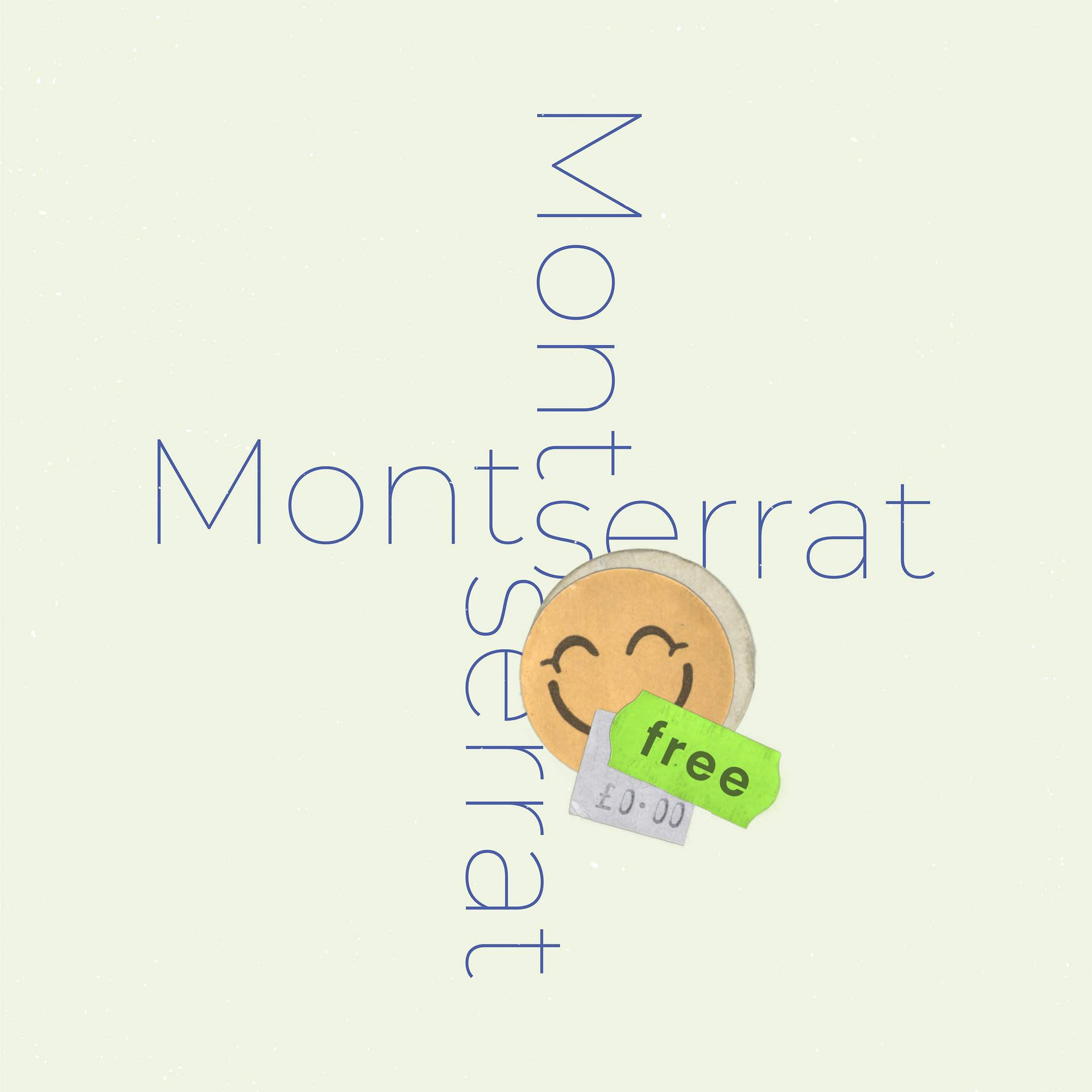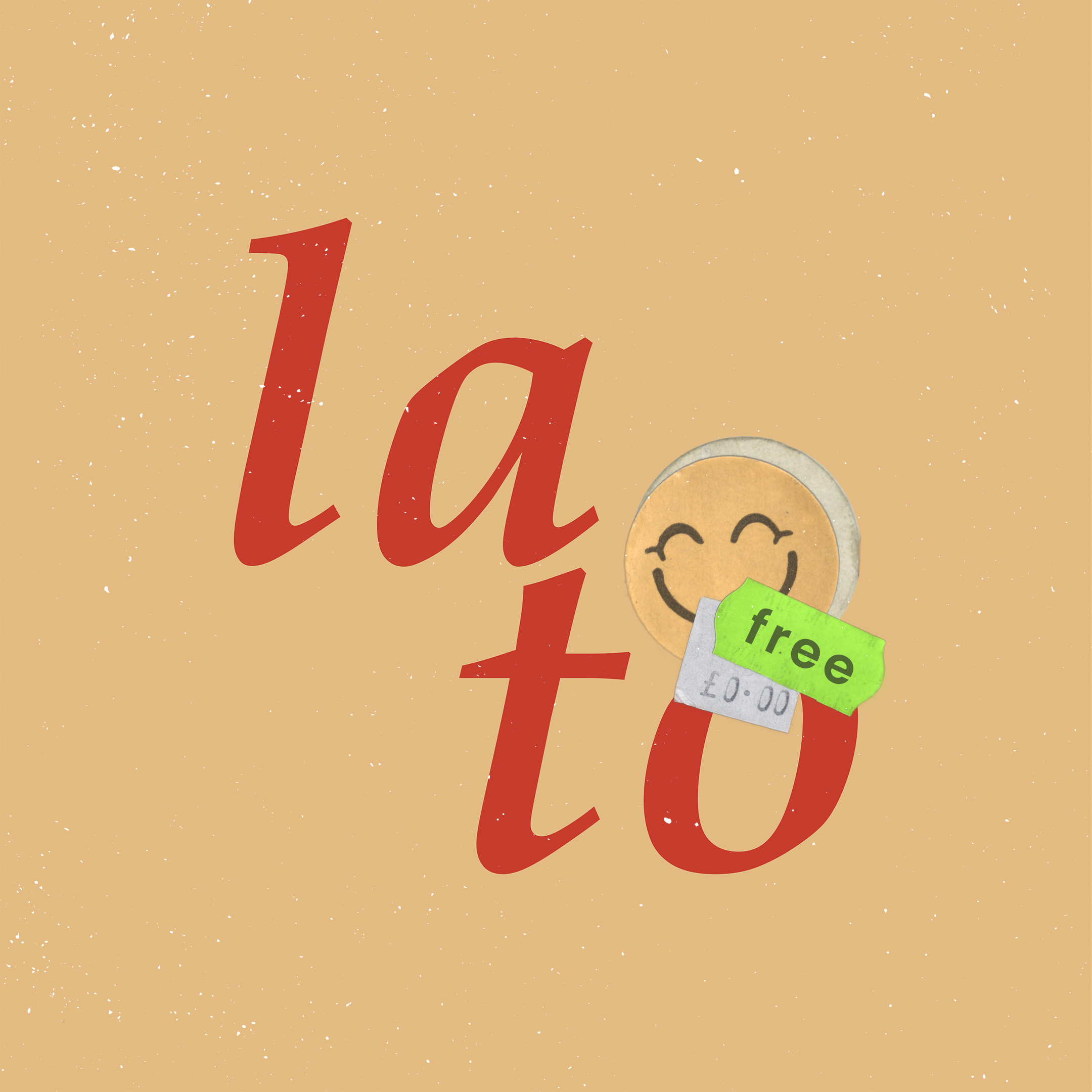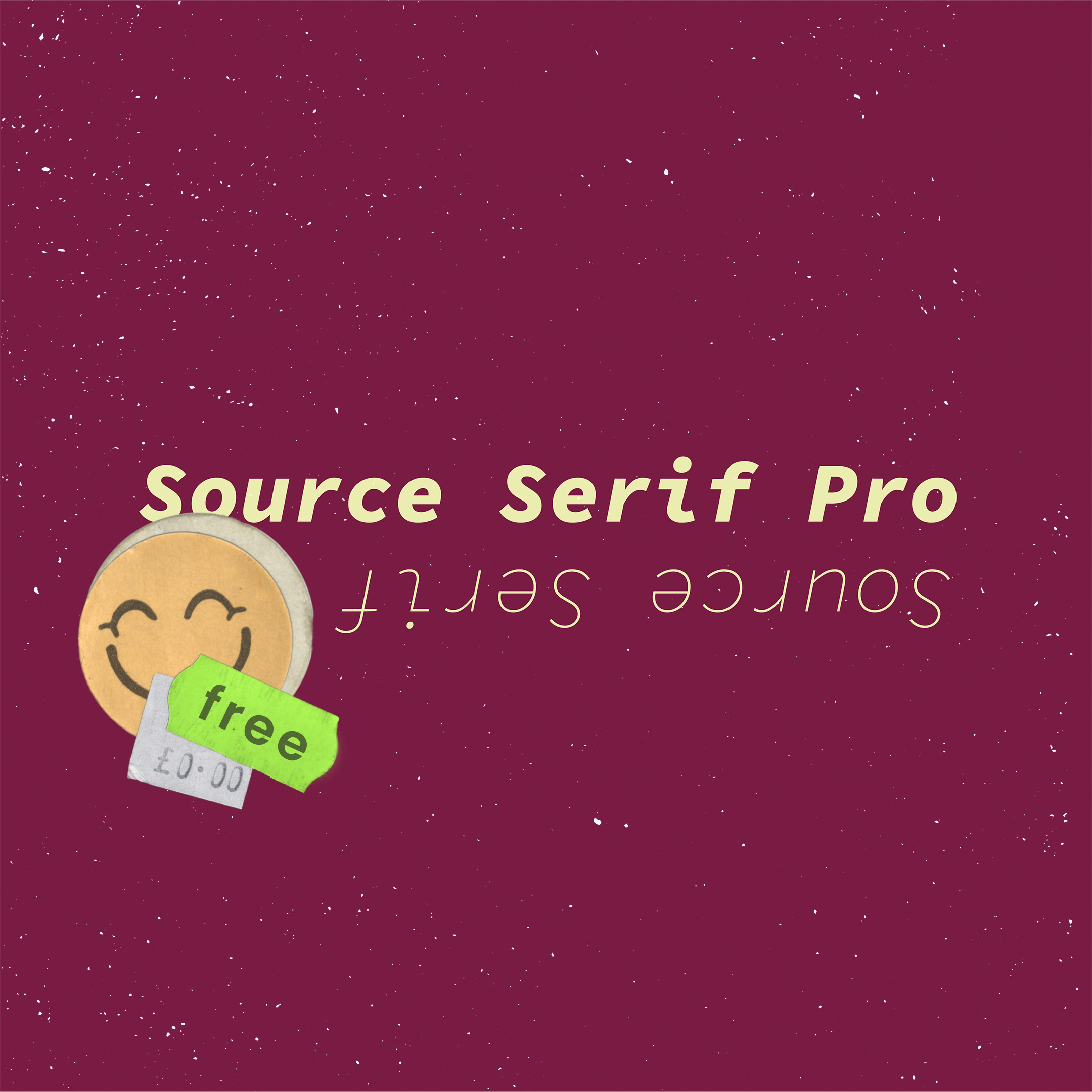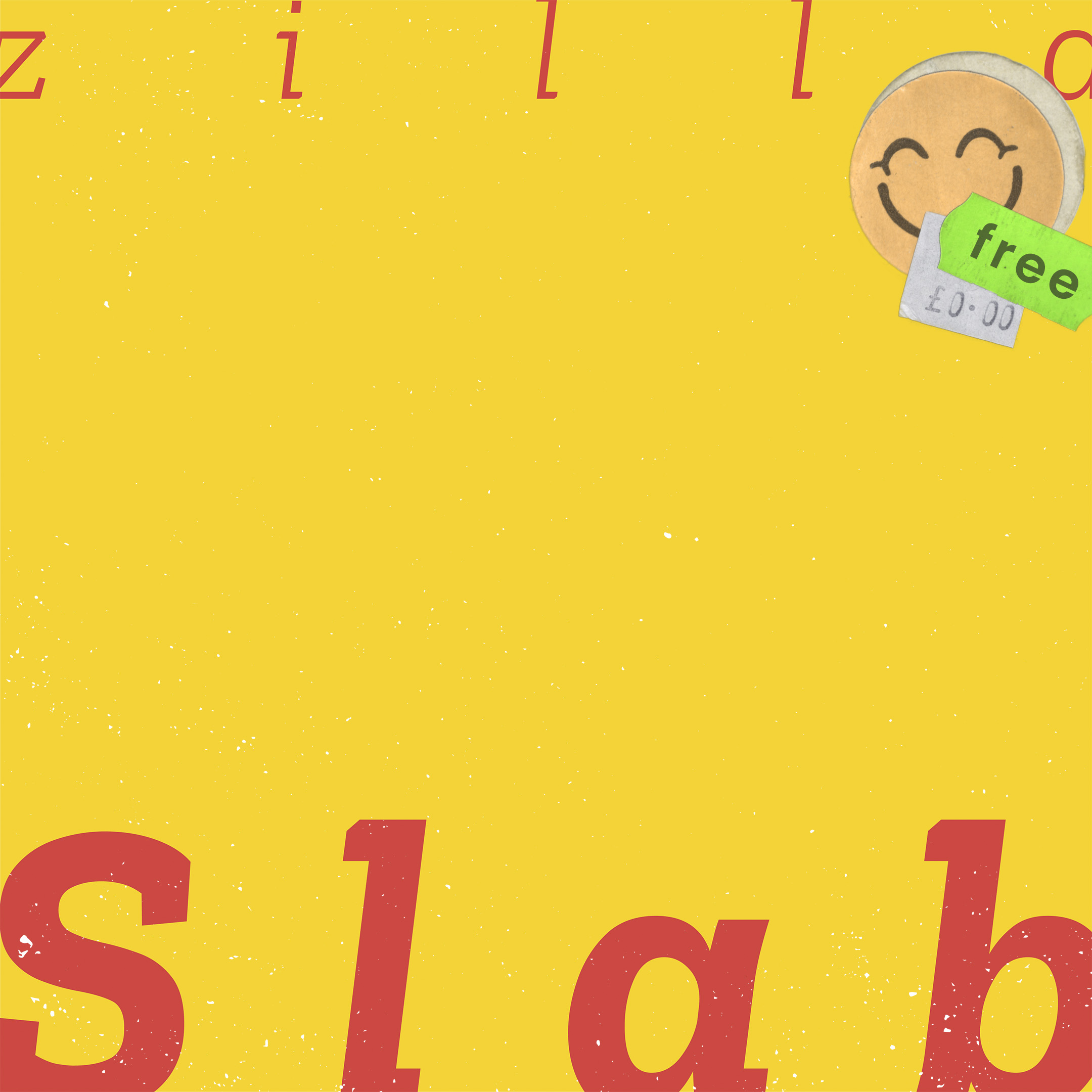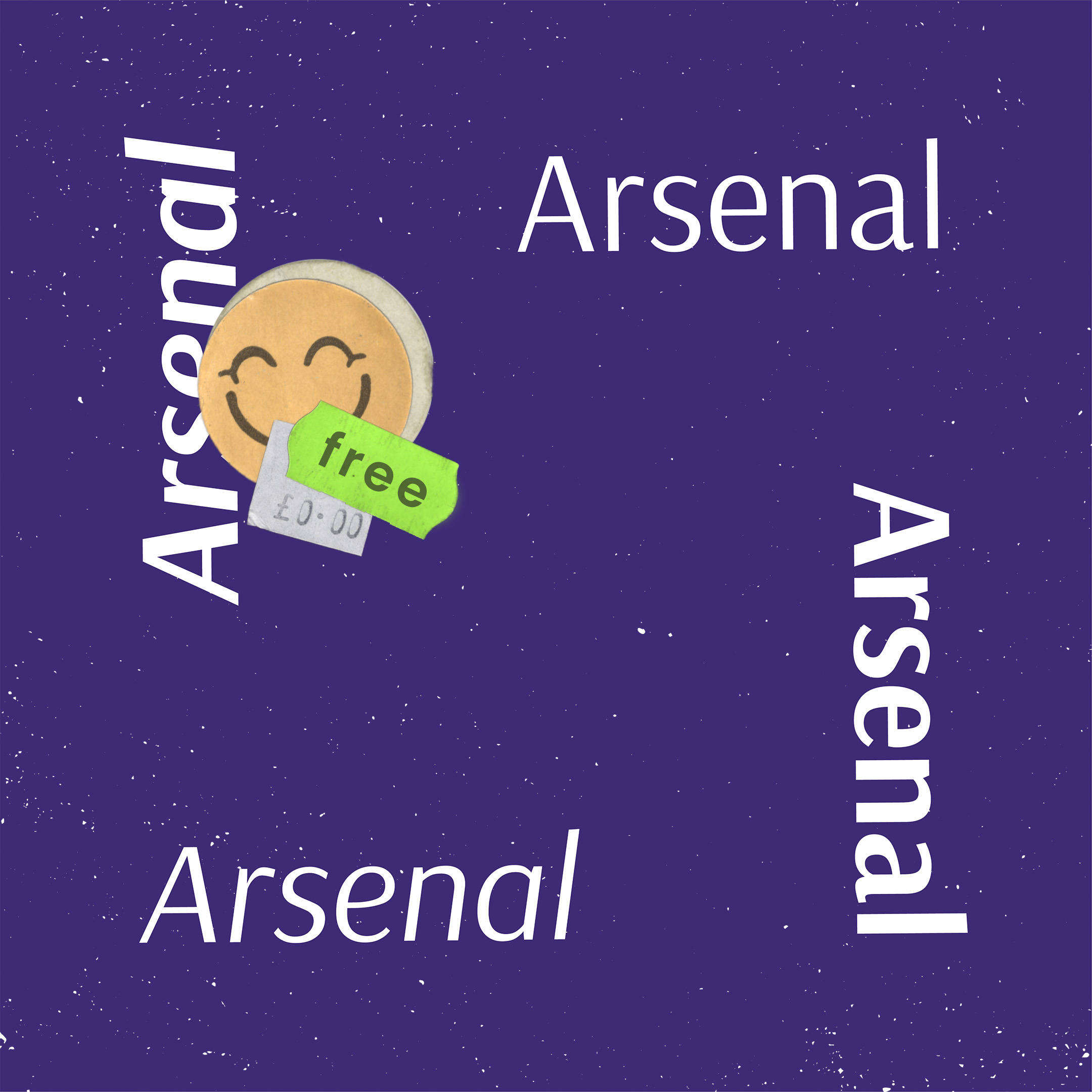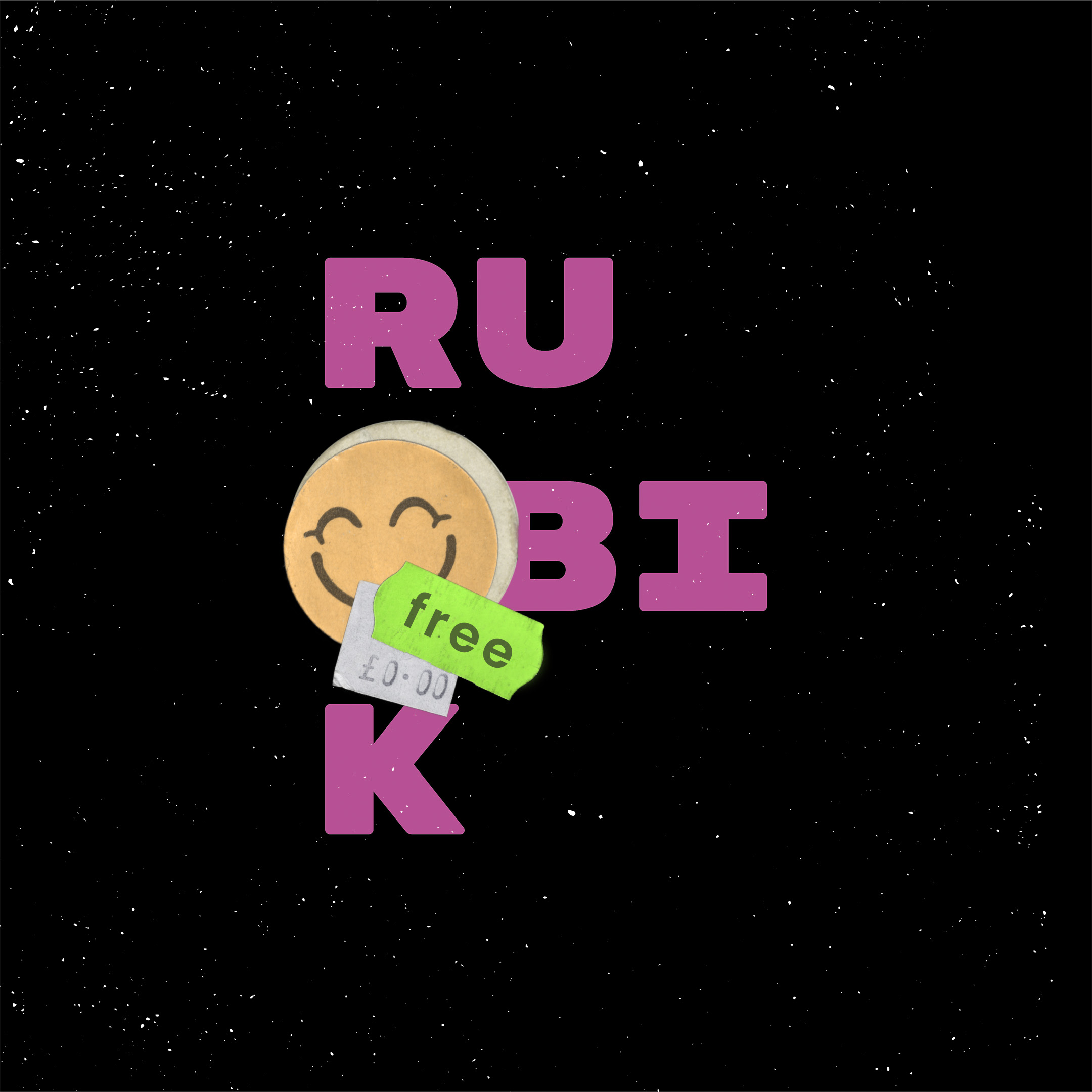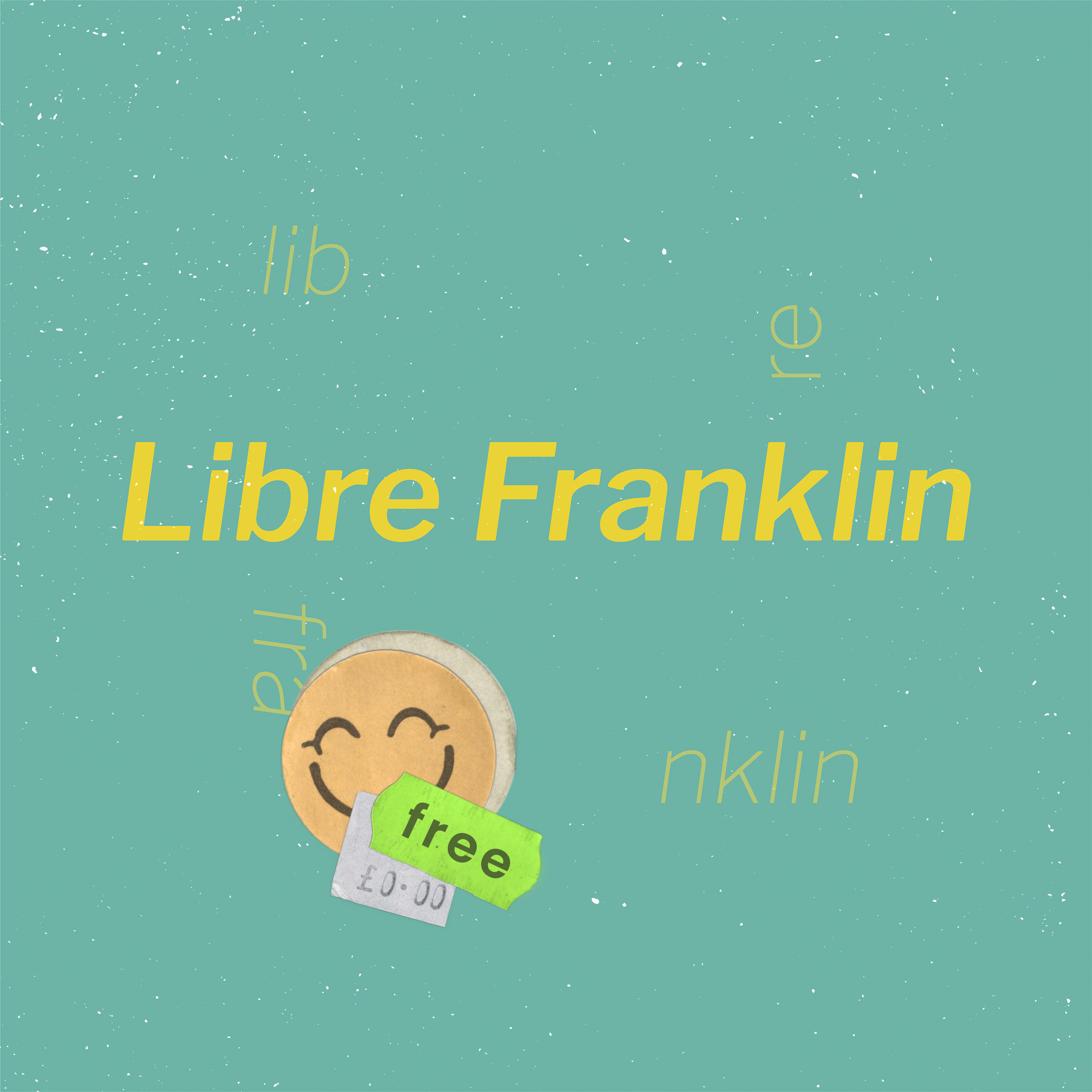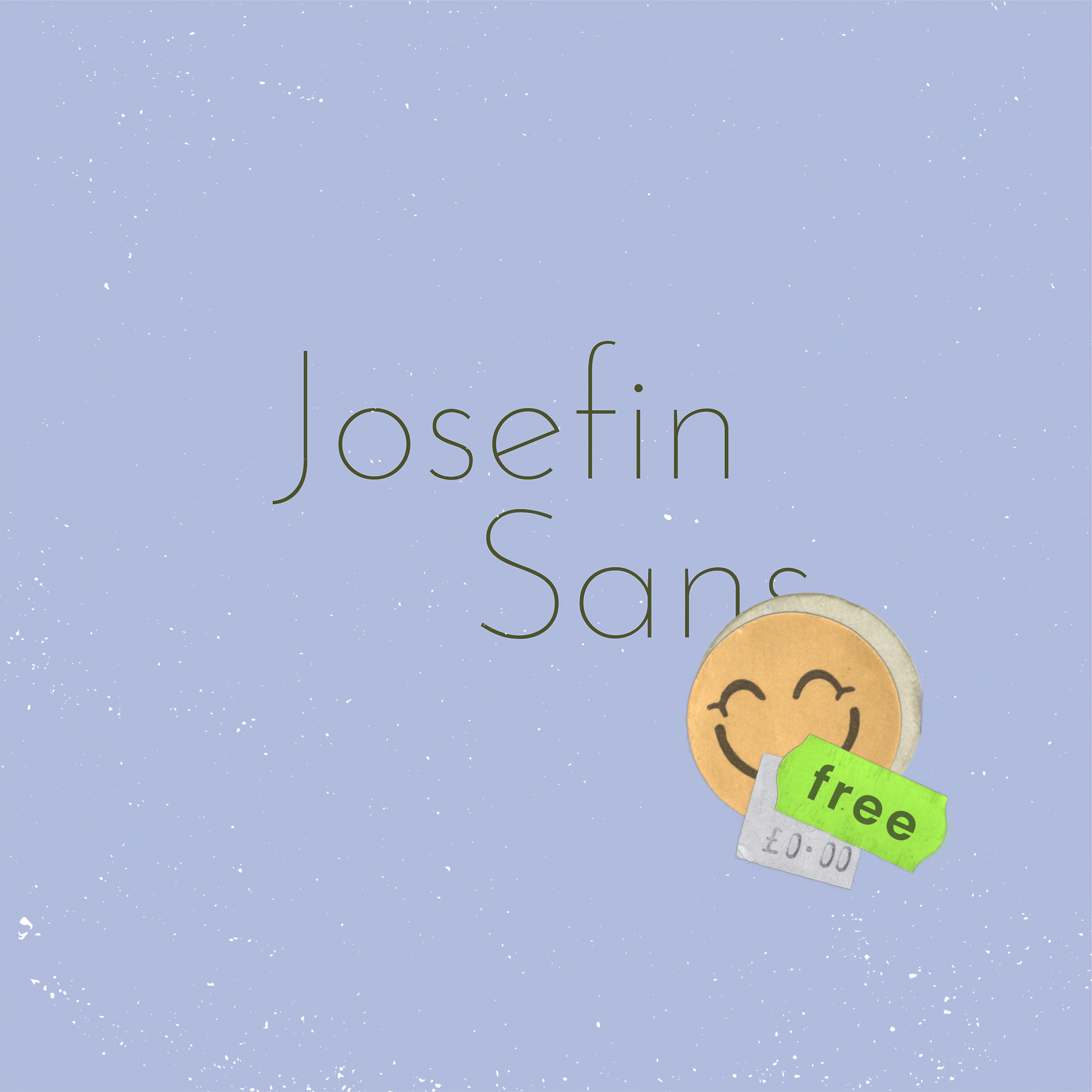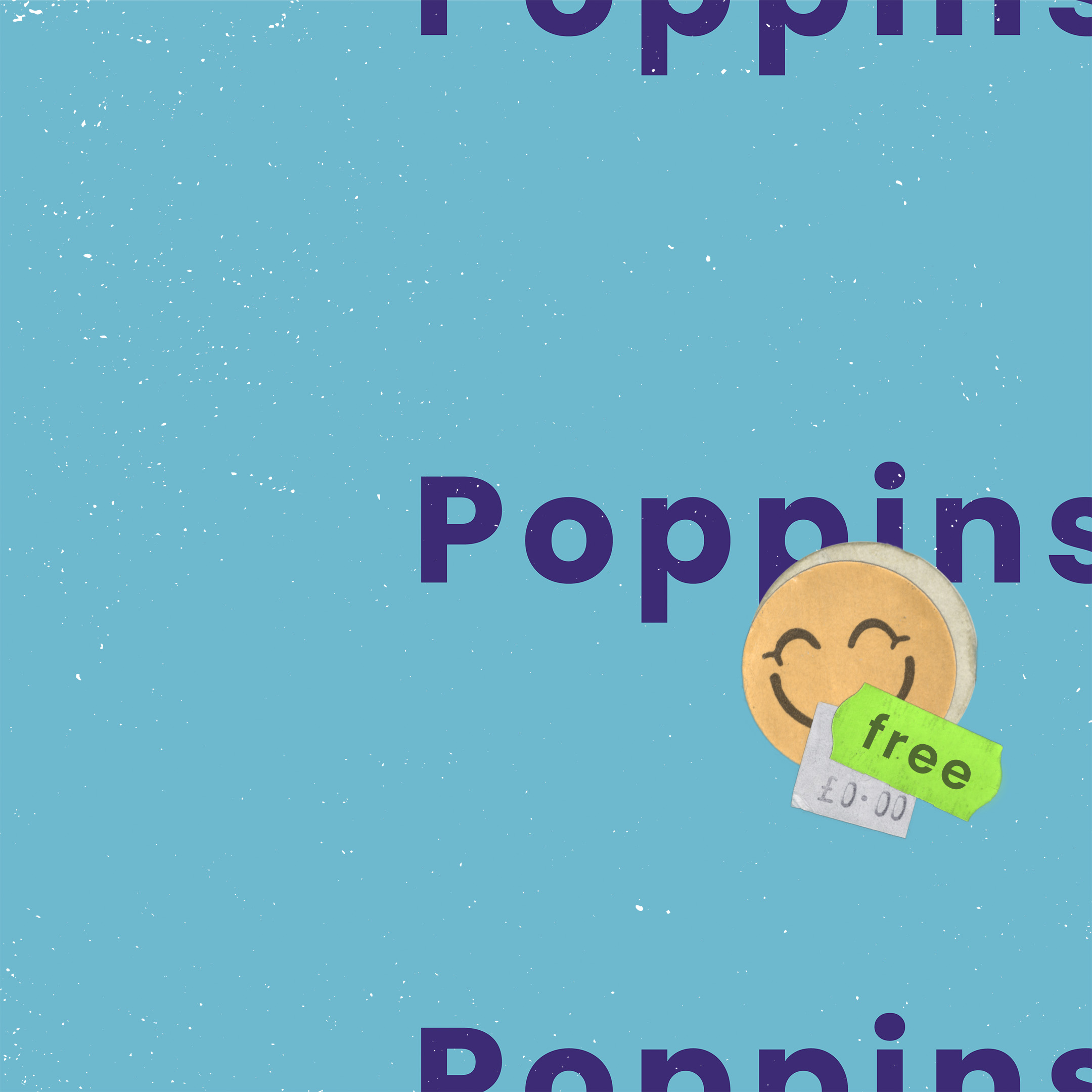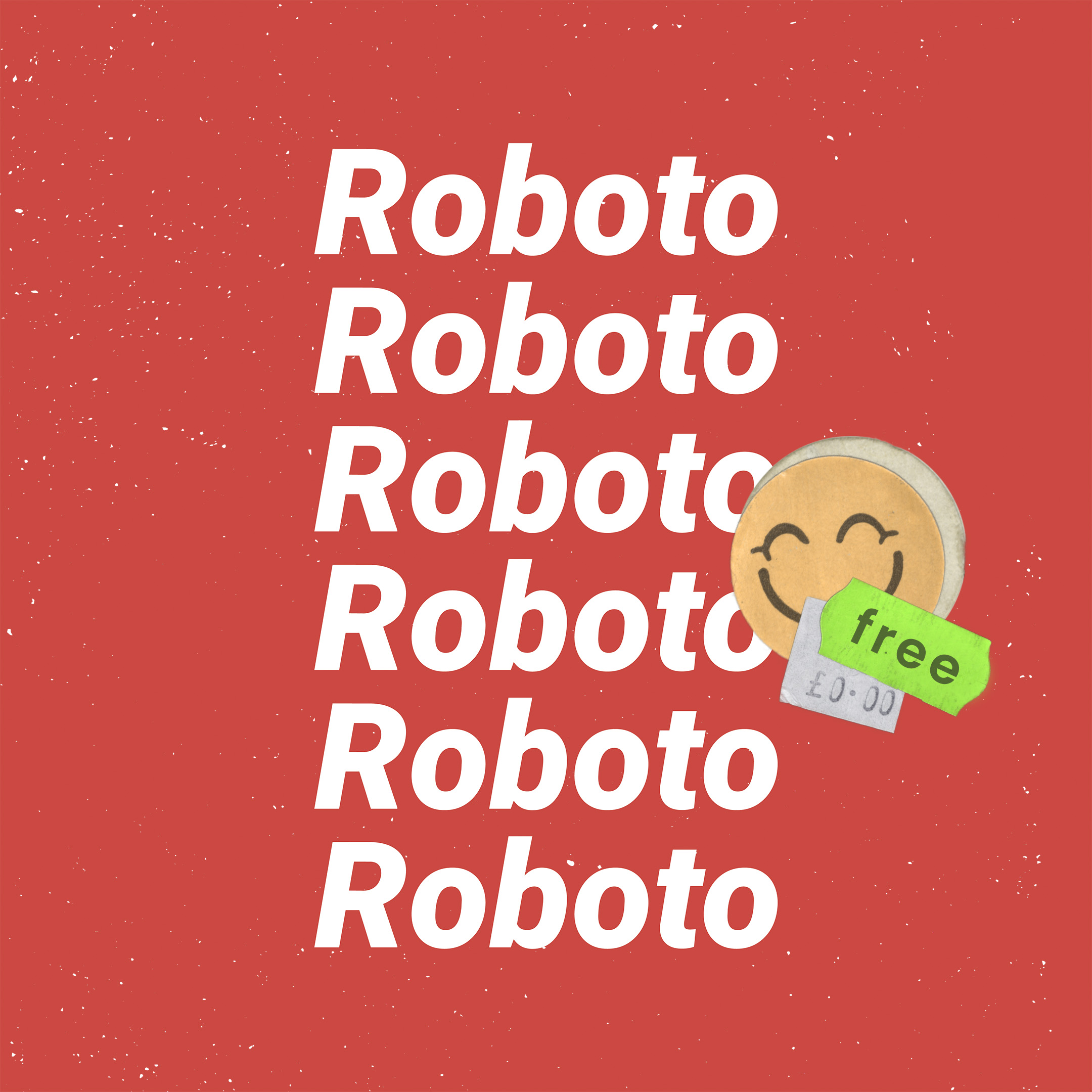
10 Free Google Font Alternatives to Popular Fonts
Whether you’re a student or a recent graduate, living on a tight budget means looking for savings wherever you can, including the assets for your creative projects. Of course, you don’t want to compromise on the quality of your work. That would be the very definition of a false economy. But the good news is, when it comes to fonts, you don’t have to!
Carefully curated by one the world’s biggest companies, Google Fonts is an oasis of high-quality digital typefaces. They’re all open source and available for free, forever. So if you can’t afford to licence commercial fonts, it’s a great place to find a no-cost alternative.
Read on as we bring you 10 free Google Fonts alternatives to the most popular commercial fonts, and explain what each has to offer the cash-strapped designer.
Alternative to: Helvetica Neue
Free Google Fonts: Roboto
Designed in-house by Google’s Christian Robertson, Roboto is a neo-grotesque, sans-serif typeface family with somewhat of a dual nature. Its mechanical skeleton and largely geometric forms are balanced by friendly and open curves, and letters that settle naturally into their given width. Consequently, it’s a great font for instilling your body text with a natural reading rhythm.
Alternative to: Gotham, Proxima Nova
Free Google Fonts: Montserrat
Argentinian designer Julieta Ulanovsky was inspired to create the original version of this font by signage in Montserrat, the oldest neighbourhood of Buenos Aires. In her words, her distinctive and evocative design encapsulated the “work, dedication, care, color, contrast, light and life, day and night” that typifies the people who live there. The classic typeface continues to be updated as part of the Google Fonts project and most recently, in 2017, it was redrawn by Jacques Le Bailly and Cyrillic support was added.
Alternative to: Avenir
Free Google Fonts: Lato
Lato (which means ‘summer’ in Polish) is a humanist sans-serif typeface designed by Łukasz Dziedzic. It was originally devised in 2010 as a set of corporate fonts. But, the client decided to go in different direction, so Dziedzic generously made the font available for free through Google Fonts. It cleverly combines classical proportions, which provide a sense of harmony and elegance. With a sleek sans serif look that still looks remarkably on-trend, a decade after it was first created.
Alternative to: Charter
Free Google Fonts: Source Serif Pro
One of Adobe’s impressively long line of high-quality free typefaces, Source Serif Pro boasts simplified and highly readable letter shapes that are perfect for digital screens. As well as this, it is loosely based on the work of Pierre Simon Fournier, a French type-founder from the 18th century. This new version by Frank Grießhammer takes the idiosyncrasies Fournier was famed for and reworks them significantly for a modern age.
Alternative to: Museo Slab
Free Google Fonts: Zilla Slab
Created by Typotheque, Zilla Slab is the core typeface of Mozilla. Who you may know as the organisation behind the open-source web browser Firefox. A modern slab serif font based on Typotheque’s own Tesla. Its smooth curves and true italics combine to evoke a sophisticated version of an industrial look, with a friendly approachability nonetheless.
Alternative to: Optima
Free Google Fonts: Arsenal
This award-winning typeface was created by Ukrainian designer Andrij Shevchenko. Arsenal is mainly intended for body text and professional visual communications. A semi-grotesque with traditional forms, it’s neutral, clear and somewhat lyrical. It is ideal for economical typesetting because of its narrow proportions.
Alternative to: Block Berthold
Free Google Fonts: Rubik
Rubik is a sans serif font family with slightly rounded corners, stout proportions and low-stroke contrast. It was designed by Philipp Hubert and Sebastian Fischer for use in a Rubik’s Cube exhibition, commissioned by Google. It would be a good choice for display text because it is a five-weight family with Roman and Italic styles.
Alternative to: Franklin Gothic
Free Google Fonts: Libre Franklin
Libre Franklin is an interpretation and expansion of the classic 1912 typeface Franklin Gothic by Morris Fuller Benton.  Presently led by Argentinian type design foundry Impallari Type. The new version expands the original typeface into nine weights. Similarly each has matching italics. Because of this it is a good choice for headlines and advertisements.
Alternative to: Brandon Grotesque
Free Google Fonts: Josefin Sans
Designed by Santiago Orozco, Josefin Sans is an elegant, geometric and vintage typeface that works equally well at larger sizes. Inspired by the geometric sans serifs of the 1920s, it has an unusual and distinctive look because the x-height is halfway from baseline to cap height. Additionally in December 2019, it was also updated to work as a variable font.